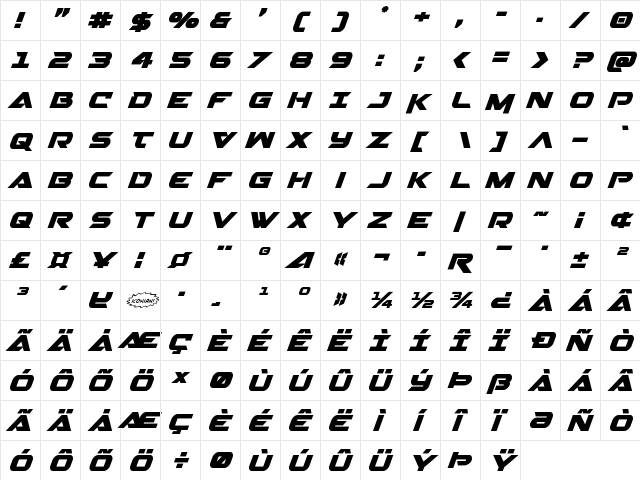
Gemina2 Italic Italic
Design Context for Gemina2 Italic Typeface
Gemina2 Italic is a composed and adaptable typeface that performs quietly and consistently across a wide range of design contexts. Its italic angle brings a sense of urgency and motion to the letterforms.
Pro Tip: Use Gemina2 Italic for emphasis, pull quotes, and subheadings where its slanted energy can add rhythm to the layout.